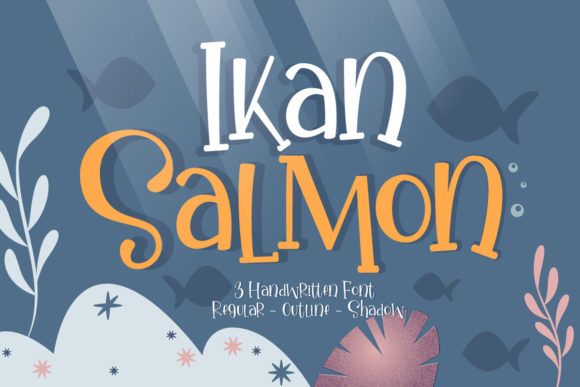
Journey into the enchanting world of Ikan Salmon Font, a captivating script creation by the talented Gilar Studio. Experience the magic of this handwritten font, a symphony of playful curves and charming characters that will transform your digital designs into works of art.
Immerse yourself in the beauty of Ikan Salmon, a font crafted with meticulous attention to detail, ensuring a flawless visual experience. Its clean lines and harmonious flow will elevate your typography to new heights, leaving a lasting impression on your audience.
Ikan Salmon's versatility knows no bounds. Whether you're designing logos, branding materials, social media graphics, or crafting heartfelt invitations, this font will seamlessly adapt to your creative vision. Its playful nature adds a touch of whimsy to any project, while its elegant charm exudes sophistication and grace.
Prepare to be captivated by Ikan Salmon's exceptional legibility, even on the most intricate displays. Designed with retina display technology in mind, this font ensures that every letter, every stroke, and every delicate detail is rendered with crystal-clear precision. Your designs will shine with an unmatched clarity that will leave your audience in awe.
Unlock the full potential of Ikan Salmon's extensive character set. With PUA encoding, you'll have effortless access to a treasure trove of glyphs and swashes, empowering you to add intricate embellishments and flourishes to your designs. Unleash your creativity and let your imagination soar as you explore the endless possibilities that await you.
Ikan Salmon is not just a font; it's an invitation to embark on a creative adventure. Its user-friendly nature makes it a joy to work with, allowing you to effortlessly transform your ideas into stunning visual masterpieces. Experience the ease and delight of using a font that feels like an extension of your creative self.